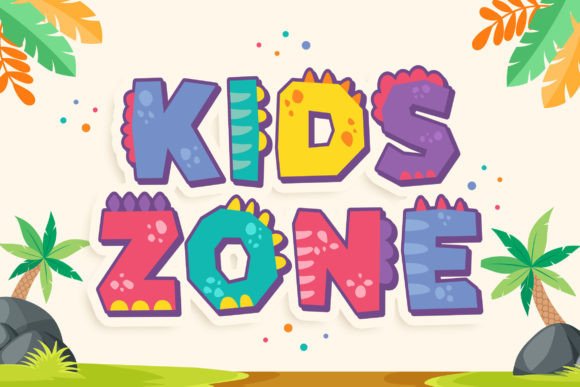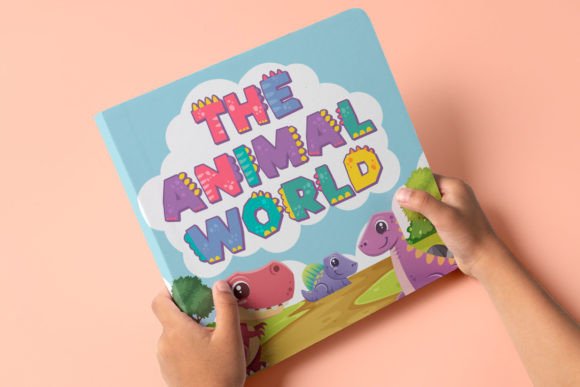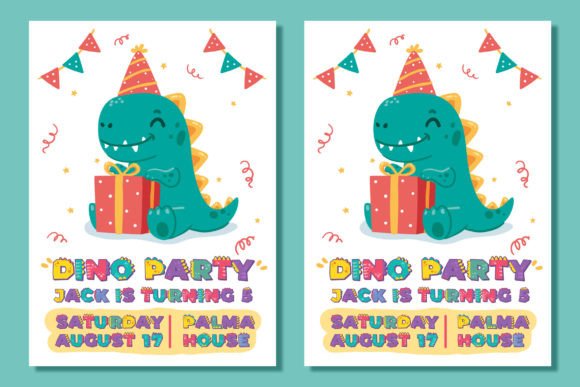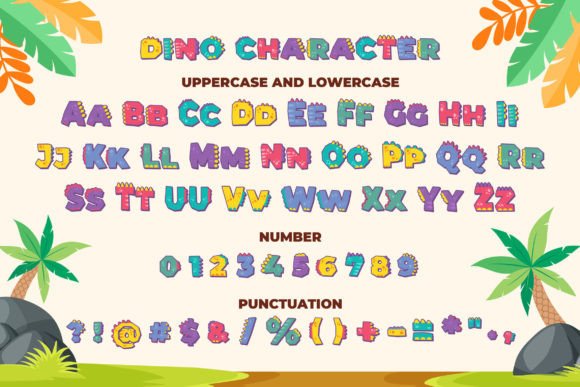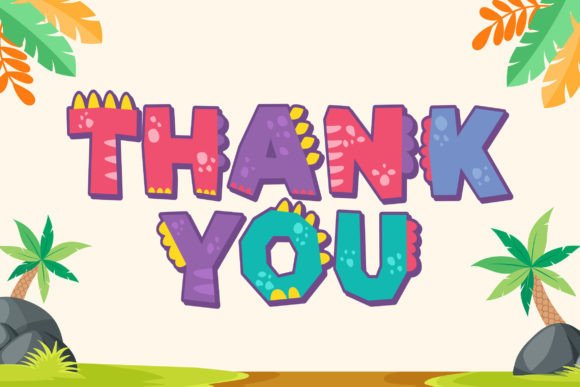
Unleash Your Creativity with Dino Font: The Ultimate SVG Color Font
Are you on the hunt for an SVG font that injects a dose of fun and creativity into your designs? Look no further! We are excited to introduce you to Dino, a playful typography-inspired SVG color font that is sure to make your designs pop. Whether you’re a designer, crafter, or DIY enthusiast, Dino is the perfect choice for creating eye-catching and imaginative projects.
What Makes Dino Font So Special?
Dino font is not your ordinary font. It’s an SVG (Scalable Vector Graphics) color font, also known as an Opentype-SVG font, which means it’s made up of vector shapes that can be scaled up or down without losing any quality. This font is designed to bring a playful and creative touch to your designs, making it perfect for a wide range of applications, from book covers and posters to packaging, merchandise, and logotypes.
Key Features of Dino Font
- SVG Color Font: Dino is an SVG color font, which allows for vibrant colors and crisp lines, even when scaled up or down.
- Playful Typography: Inspired by playful typography, Dino font is designed to add a fun and whimsical touch to your designs.
- Aesthetic Appeal: With its carefully crafted design, Dino font is suitable for a wide range of projects, from book covers and posters to packaging and merchandise.
Use Cases for Dino Font
Dino font is incredibly versatile and can be used for a variety of projects, including:
- Book Covers: Add a playful touch to your book covers and make them stand out.
- Posters: Create eye-catching posters for events, promotions, or educational purposes.
- Packaging: Add a creative touch to your product packaging and make it more appealing to customers.
- Merchandise: Design fun and playful merchandise, such as t-shirts, mugs, and tote bags.
- Logotype: Use Dino font to create a unique and memorable logo for your brand.
Why Choose Dino Font?
So, why choose Dino font over other fonts? Here are just a few reasons:
- Unique and Playful Design: Dino font offers a unique and playful design that will make your projects stand out.
- High-Quality SVG Format: As an SVG font, Dino ensures high-quality designs that can be scaled up or down without losing any quality.
- Wide Range of Applications: Dino font is suitable for a wide range of projects, from book covers and posters to packaging and merchandise.